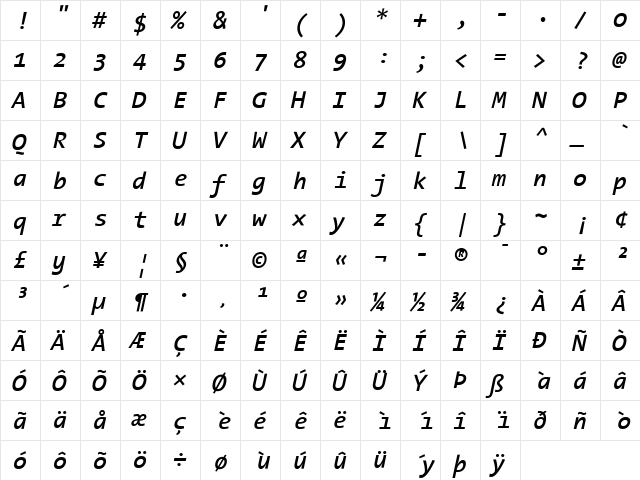
TheSansMono SemiBold Italic Font Preview
| Style | SemiBold Italic |
| Foundry | Luc\(as\) de Groot |
Design Context for TheSansMono Typeface
TheSansMono uses fixed-width spacing throughout, giving it the structured, systematic character associated with coding environments and technical documentation. The dynamic lean of this cut emphasises speed and emphasis in any layout. Its bold stroke weight gives it real presence on the page.